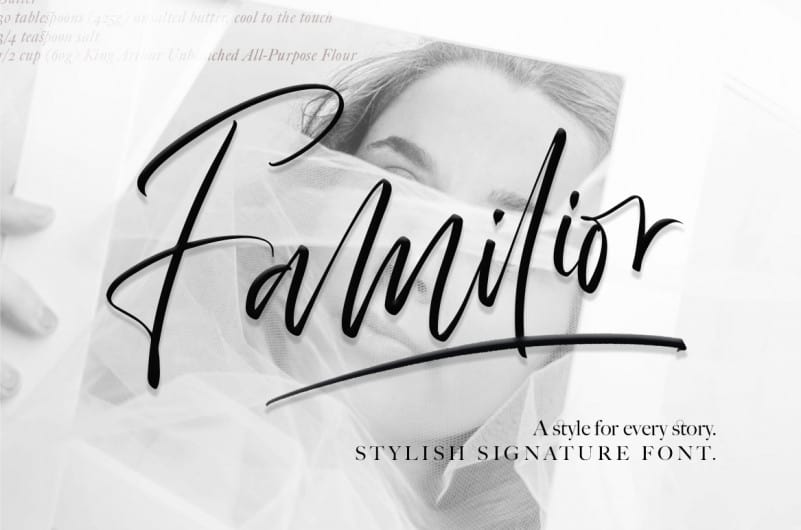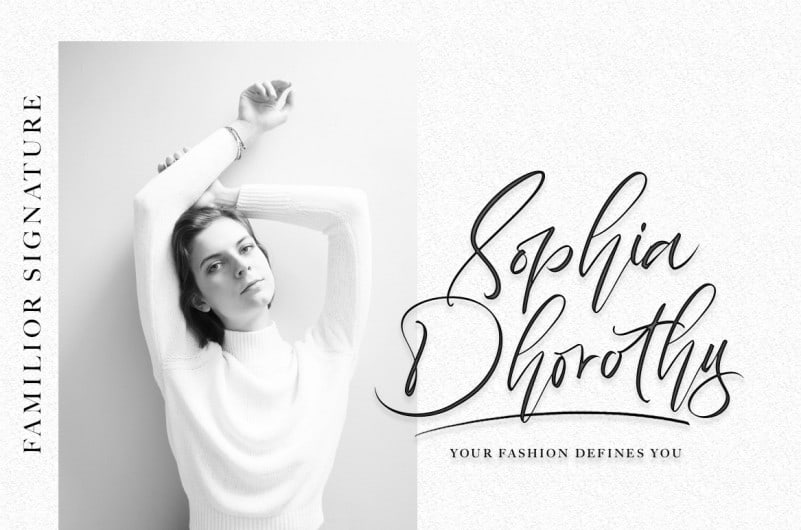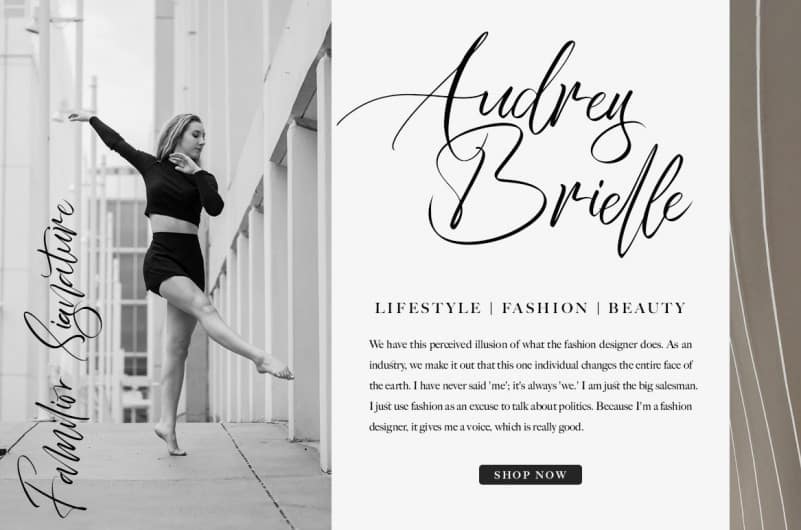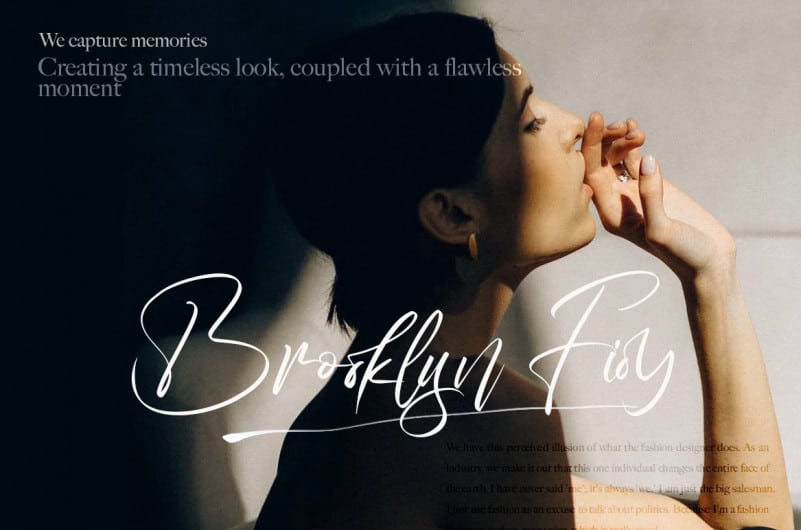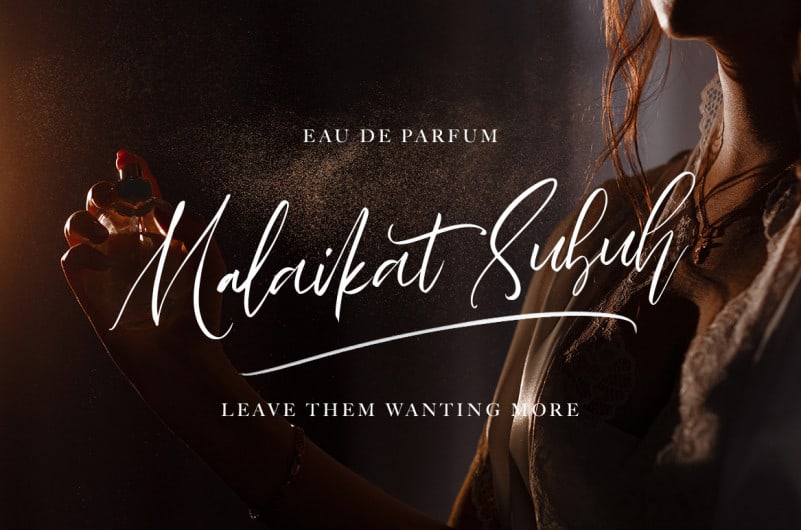
Familior Signature Font is a handwritten, signature font family with alternates, ening swsh, natural ligatures and swash. Inky and expressive yet readable and functional, this typeface is designed to look perfect fit for signature logos.